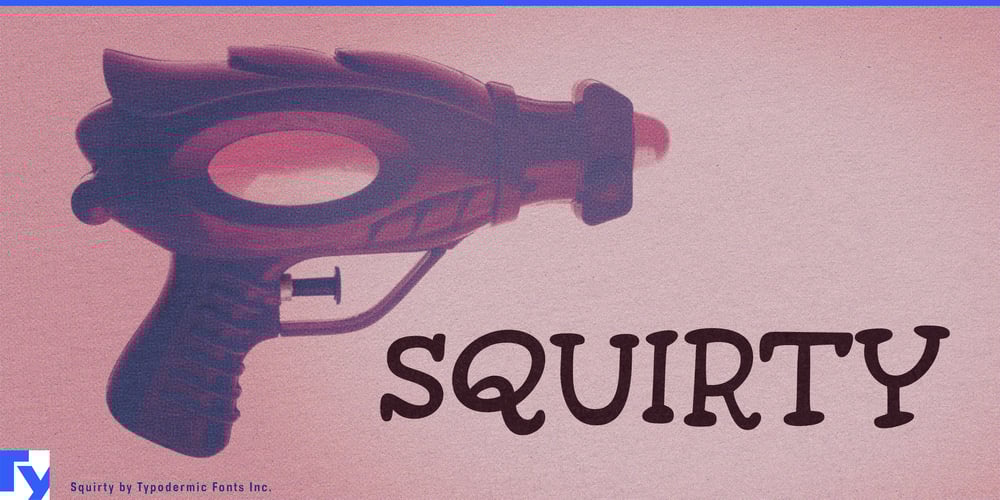
Squirty Font Family was designed by Ray Larabie and published by Typodermic. Squirty contains 1 styles and family package options. Squirty bursts onto the typographic scene with the vibrant energy of a Japanese nightclub, infusing your designs with an irresistible zest for life. This typeface doesn’t just sit on the page—it dances, it laughs, it beckons you to join in on the fun.Crafted with the freehand exuberance of hand-painted signs, Squirty’s letterforms pulse with personality. Each character is a tiny celebration, a rebellion against the mundane. It’s the typographic equivalent of that friend who always knows how to liven up a party, transforming ordinary words into extraordinary visual experiences. But Squirty’s charm goes beyond its surface appeal. For those with access to OpenType ligatures, this typeface becomes a dynamic playground of expression. Letters and numerals shuffle and rearrange themselves organically, mimicking the natural flow of conversation. It’s as if the words themselves are engaged in a lively chat, each combination fresh and unexpected.This typeface isn’t just a design tool—it’s a mood-lifter. Use Squirty when you want to inject a dose of joy into your work, whether you’re crafting playful branding, eye-catching posters, or simply adding a spark of fun to everyday communications. It’s the perfect antidote to visual monotony, guaranteed to bring a smile to your audience’s faces. Squirty’s linguistic versatility is equally impressive. It speaks the language of fun across an extensive range of writing systems, including Latin-based European languages, Vietnamese, Greek, and most Cyrillic-based scripts. From Albanian to Zulu, Squirty maintains its effervescent charm, ensuring your message bubbles with enthusiasm no matter the language.Choose Squirty when you’re ready to break free from typographic conventions and let your creativity run wild. It’s an invitation to play, to explore, and to rediscover the joy of communication. With Squirty, every project becomes an adventure, every word a celebration. So go ahead, give your designs a shake, and watch as Squirty sprays life into your creative world.